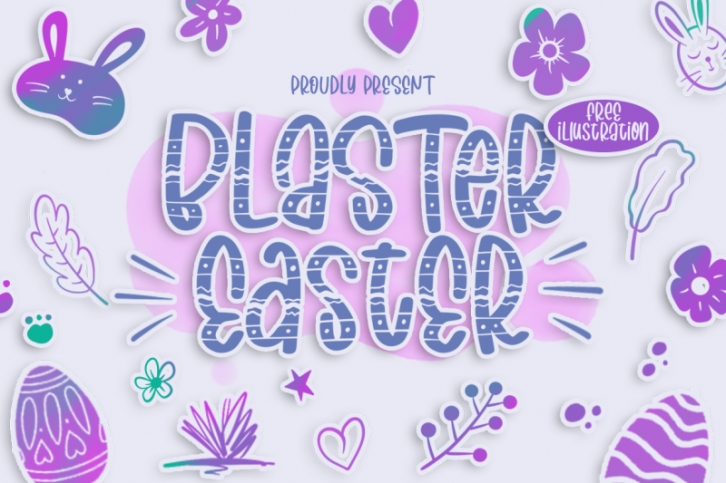
Blaster Easter is a casual and smooth handwritten font. It has a playful feel that will turn any Easter and spring crafting idea into a true standout.